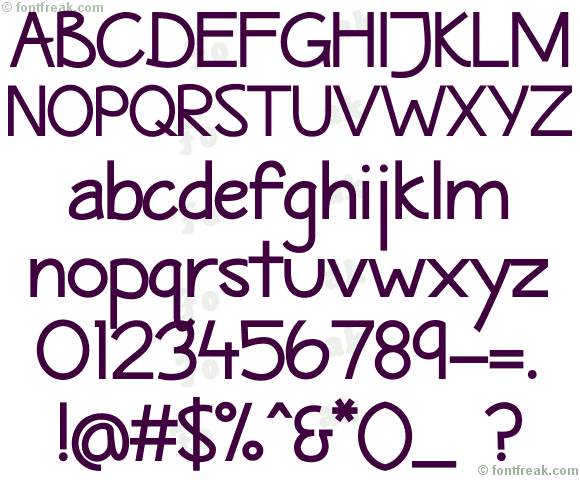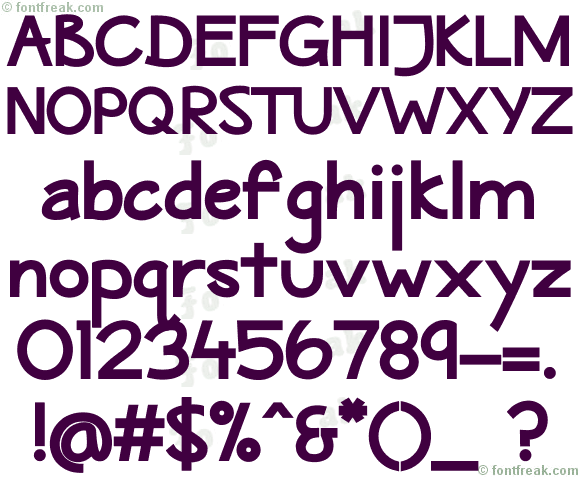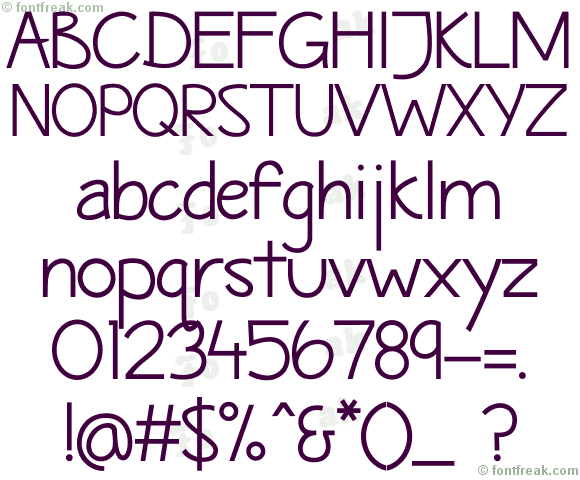
Maritime Sans Bold
Maritime Sans
MaritimeSans ExtraBold
Maritime Sans Bold, designed by Kelvin Ma, is a striking sans-serif font that embodies modern simplicity and versatility. Its bold weight contributes to a strong visual presence, making it an excellent choice for various applications. The font features clean lines and a uniform stroke weight, ensuring clarity and readability across different sizes. The spacing is well-balanced, allowing for easy legibility, which is particularly beneficial in both digital and print formats.
This font is well-suited for a range of use cases. Graphic designers can utilize Maritime Sans Bold for impactful headlines and logos, ensuring that their work stands out. Small business owners might find it perfect for branding materials such as business cards and promotional flyers, where a bold statement is crucial. Content creators can use it in social media graphics or video thumbnails to grab attention quickly. Additionally, the font can enhance restaurant menus and signage, conveying a sense of modernity and approachability that appeals to diners.
The target audience for Maritime Sans Bold includes graphic designers looking for a reliable typeface, small business owners aiming to create a strong brand identity, and content creators seeking eye-catching typography for their projects. This font's versatility and contemporary aesthetic make it a valuable addition to any designer's toolkit.
What sets Maritime Sans Bold apart is its ability to blend functionality with style. Its clean and bold design ensures that it can be applied across various mediums without losing its impact. For those looking to elevate their projects, Maritime Sans Bold font free download offers an accessible option that does not compromise on quality. Embrace this font to create compelling designs that capture attention and convey professionalism.